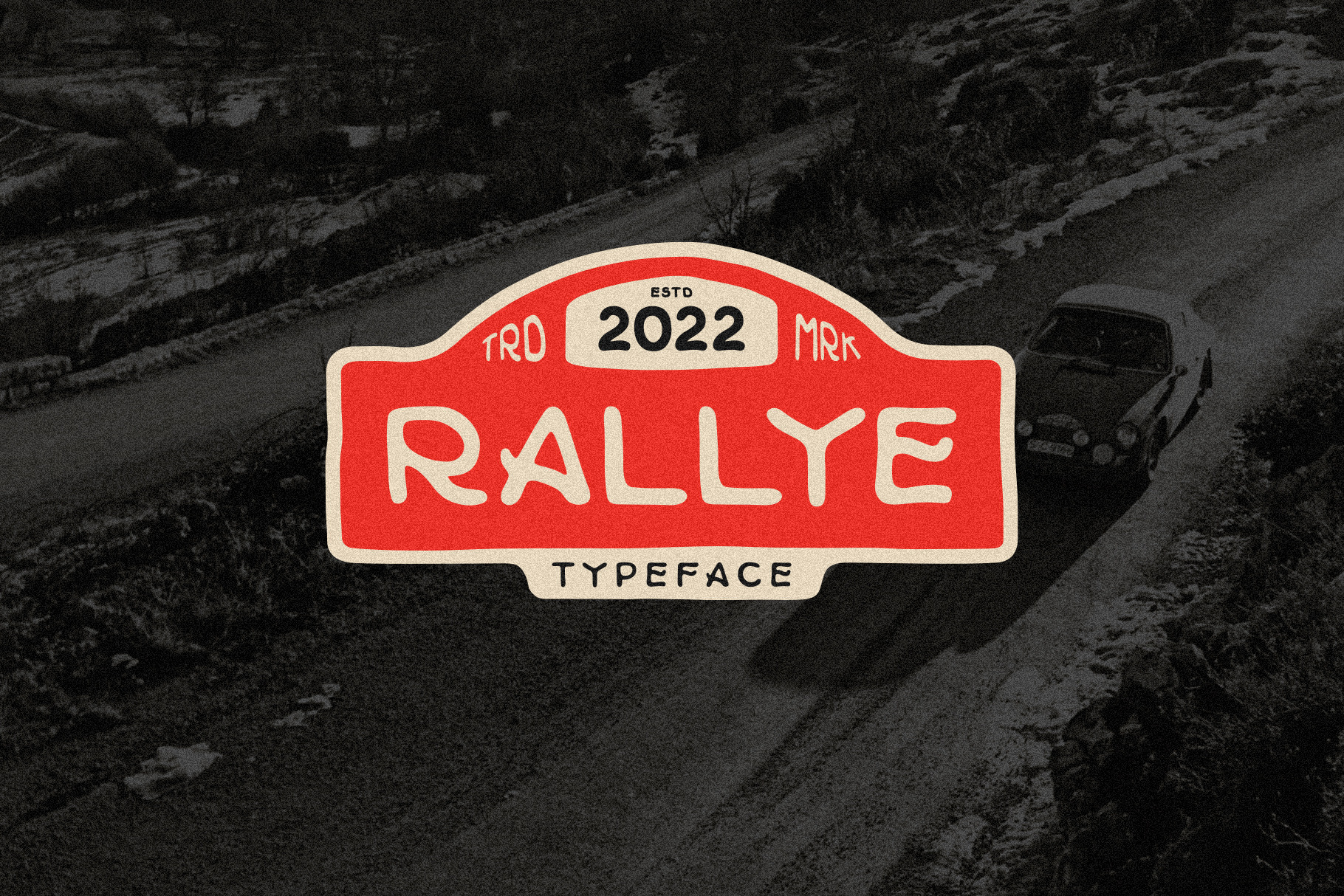
Rallye Typeface
Rallye is an all-caps typeface inspired by hand painted lettering from vintage racing posters. Includes additional characters and glyphs from a variety of languages.